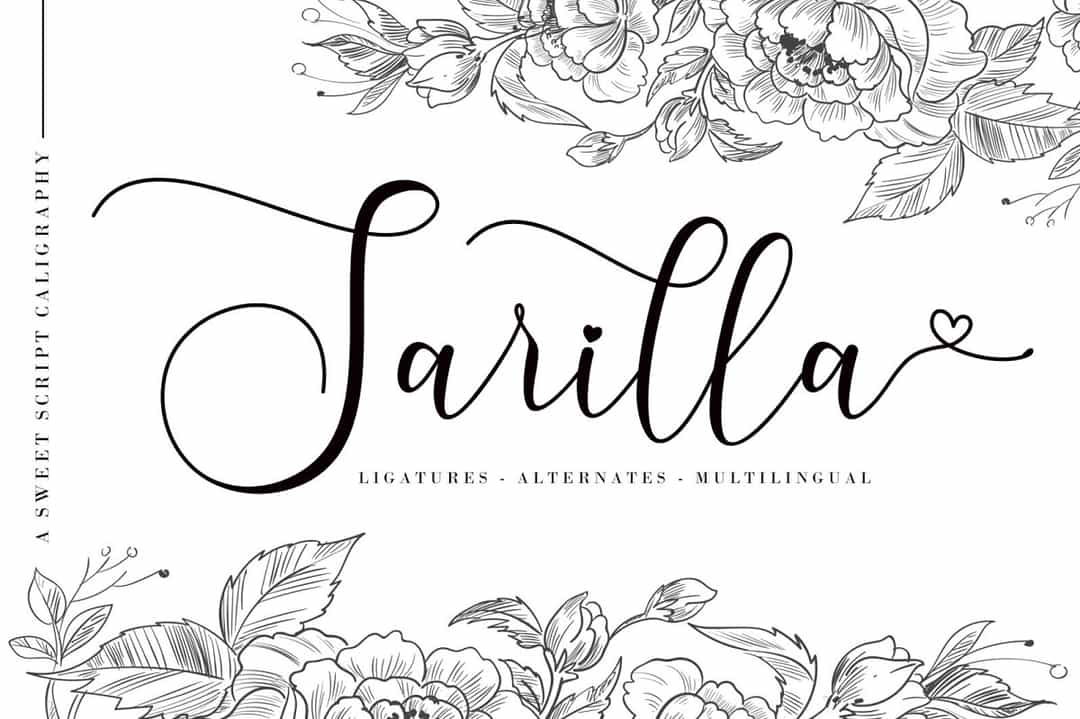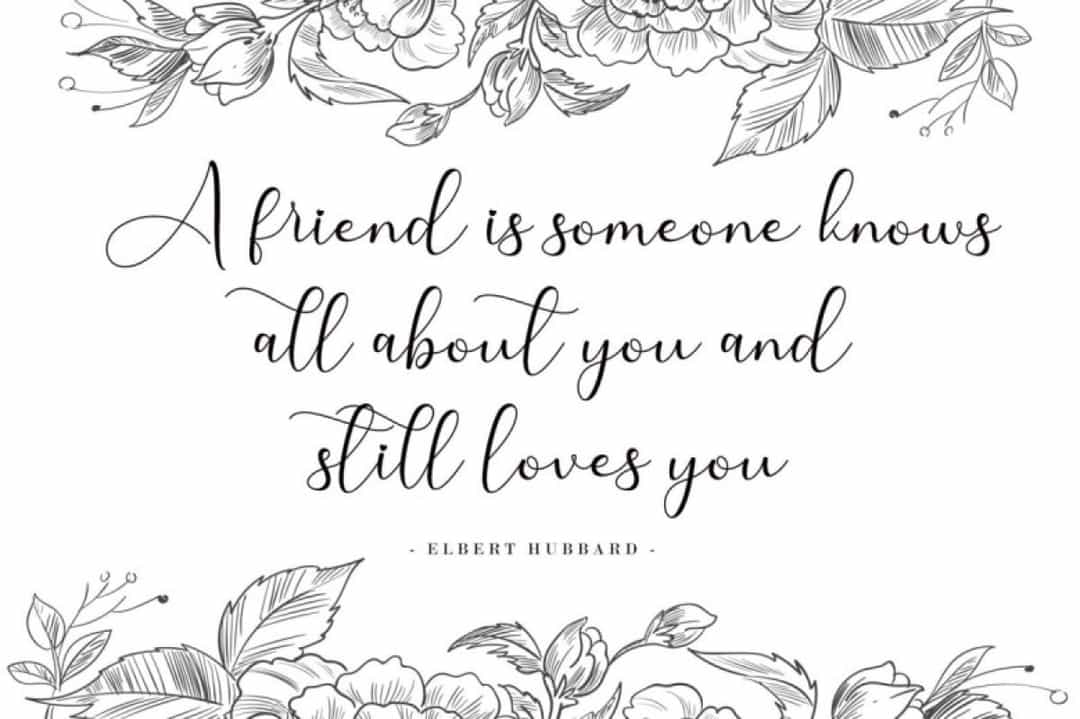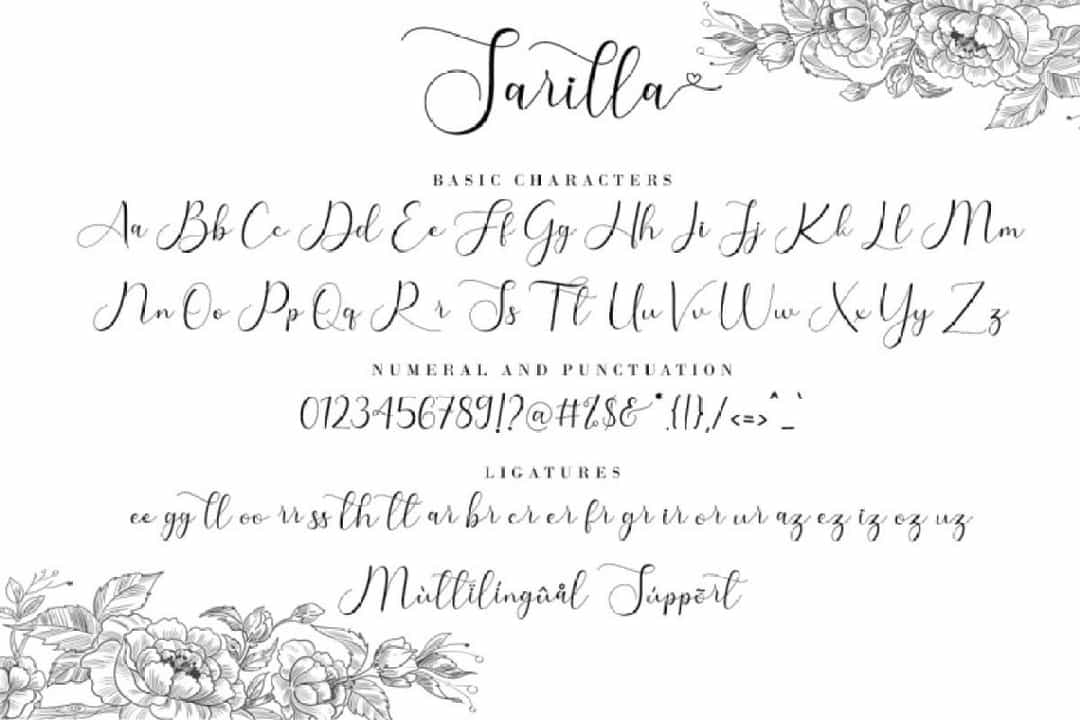
Sarilla is an elegant script font with well-balanced characters that is suitable for multiple styles. Use this beautiful font in your most imaginative ideas and watch how they come to life!